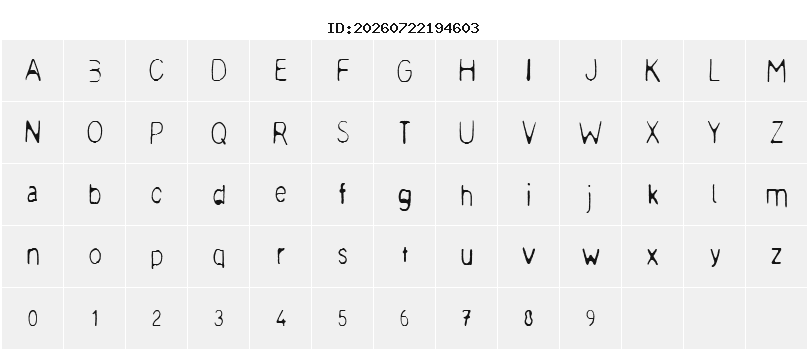
meagre Preview
• Font Name: meagre
• Designer: hekiw
About meagre.ttf
meagre.ttf is a modern, elegant sans-serif font designed for ultimate readability and visual harmony. Perfect for branding, headlines, web design, and print materials.